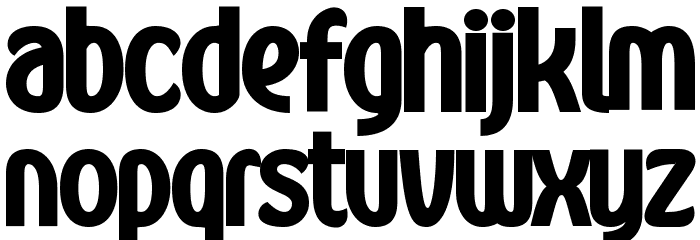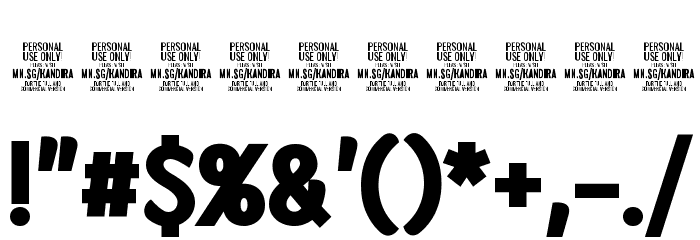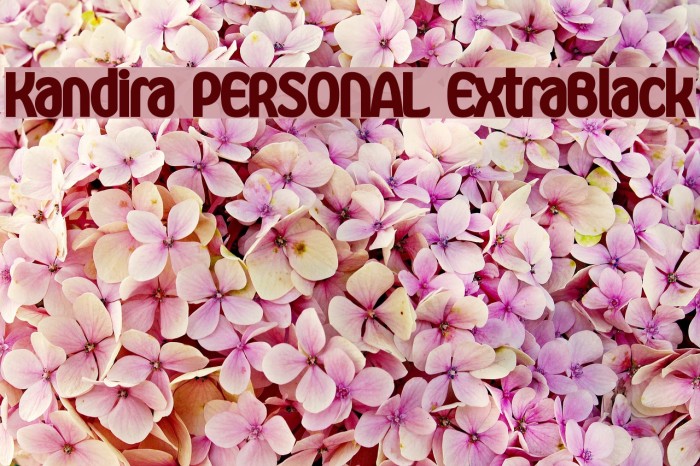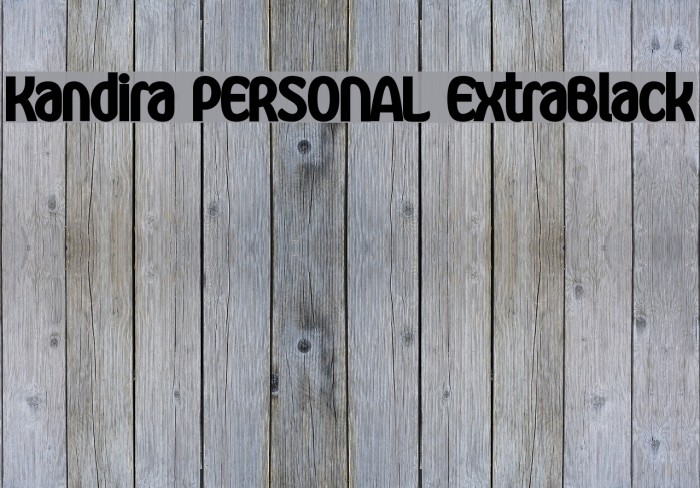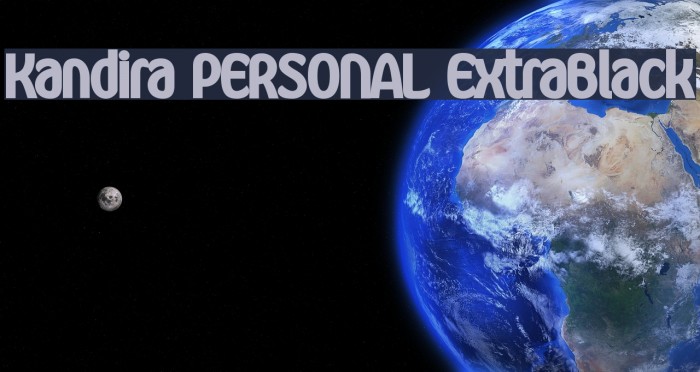
Kandira PERSONAL ExtraBlack Font
This font features bold, rounded characters with a modern and playful aesthetic. The letters are uniformly thick, providing a strong visual impact. The uppercase and lowercase letters maintain a consistent style, with smooth curves and a slightly condensed form. The numerals and special characters follow the same design principles, ensuring a cohesive look across all elements. The font's boldness makes it ideal for attention-grabbing designs, while its rounded edges add a friendly and approachable feel.
A bold, rounded font with a modern and playful style.
- Proposed Projects: Ideal for branding, headlines, posters, and any design requiring a bold, friendly appearance.